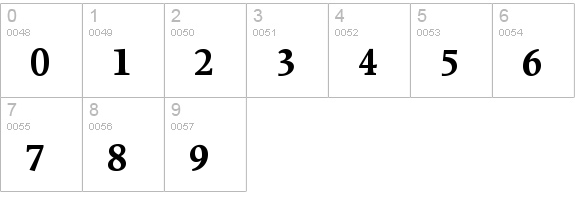
Proforma-BoldSC Font Details
Proforma-BoldSC is a bold and striking font that commands attention with its strong and confident appearance. Its sharp edges and robust design make it perfect for creating eye-catching headlines, titles, and branding materials. The Proforma-BoldSC font exudes a sense of power and authority, making it an excellent choice for projects that require a bold statement. What's even better is that Proforma-BoldSC is available for free download at FontsMarket.com. This means you can easily access this impressive font without any cost, making it a valuable addition to your font collection. Whether you're working on a professional design project or simply looking to elevate your creative endeavors, Proforma-BoldSC is sure to make a bold impact. Download it today and unleash the power of this exceptional font in your next project!